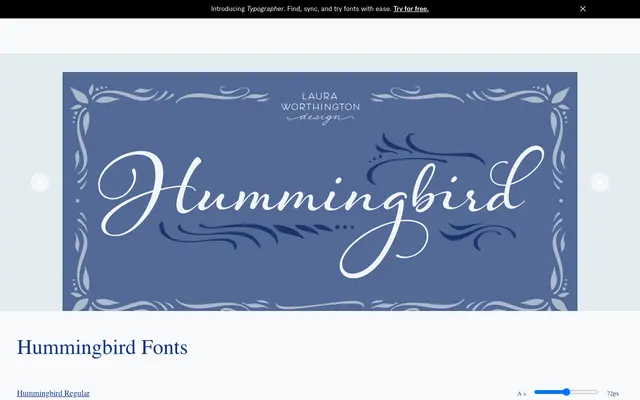
Hummingbird
A connected cursive script with 214 contextual alternates and 266 swashes, designed to replicate the organic irregularity of traditional penmanship.
Modelled on old-fashioned cursive penmanship, the letterforms evoke bundled correspondence and leather-bound ledgers. The large inventory of contextual alternates prevents repetition across longer settings, while an extensive swash set includes a full suite of decorated uppercase letters. Specially encoded for use without professional design software, making the OpenType features accessible to a broader audience.
Hummingbird is a connected handwritten script drawing directly from cursive penmanship traditions, with multiple contextual alternates and swash sets to simulate natural handwriting variation.